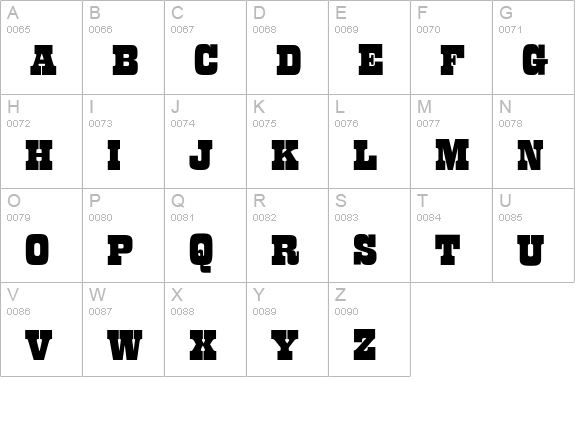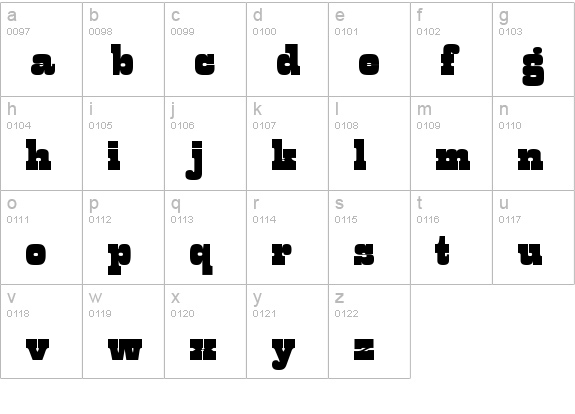
CgBarnumBlock Font Details
CgBarnumBlock font is a bold and attention-grabbing typeface that exudes a sense of strength and confidence. With its clean lines and sturdy appearance, this font is perfect for making a statement in any design project. The CgBarnumBlock font is versatile and can be used for a variety of purposes, from headlines to logos to posters. The best part about the CgBarnumBlock font is that it is completely free to download. You can easily access this powerful font at FontsMarket.com and enhance your designs with its impactful presence. Don't miss out on the opportunity to add this striking typeface to your collection today!